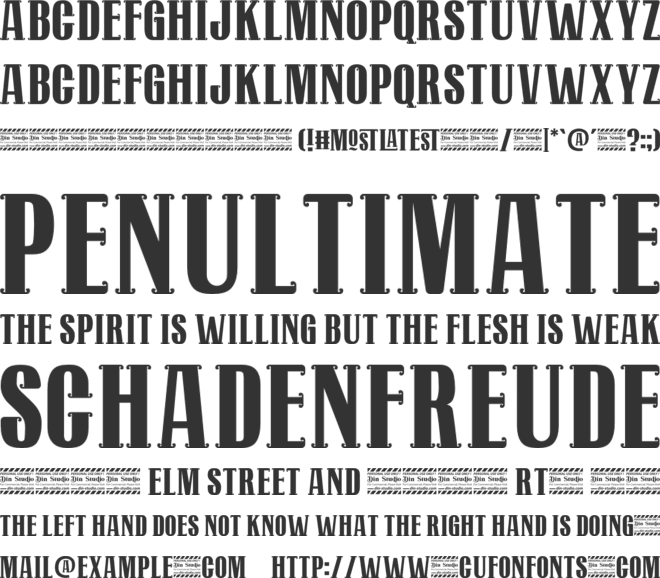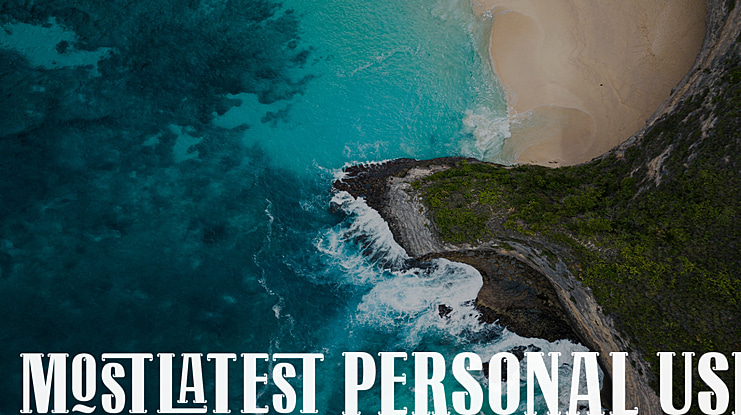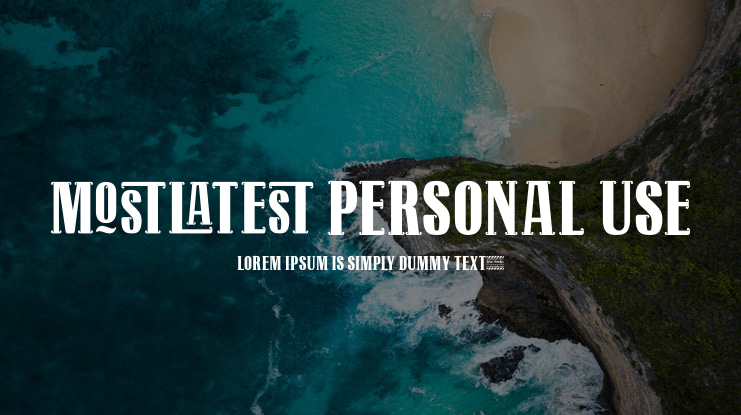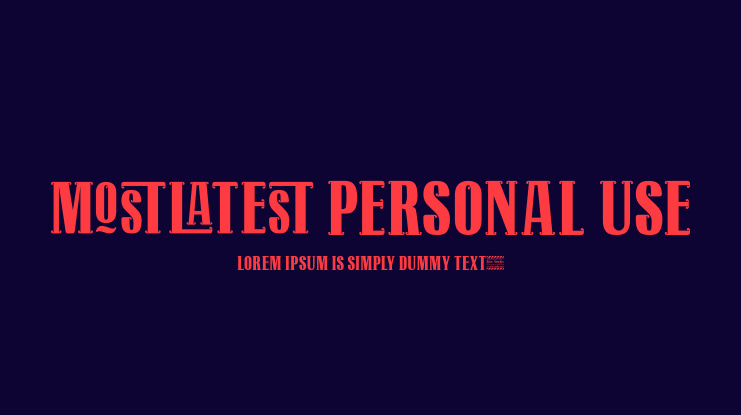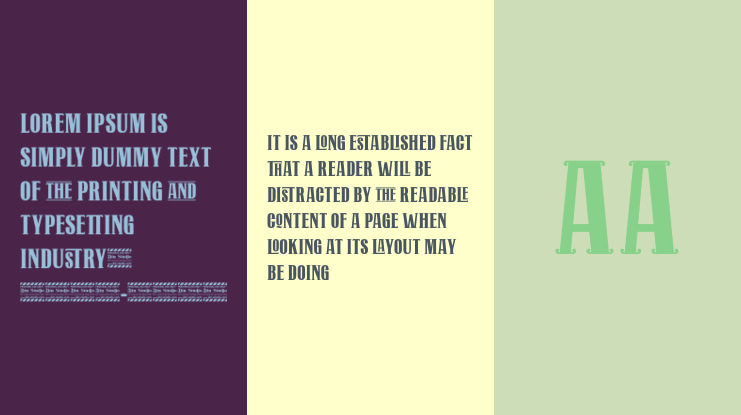
Mostlatest vintage font is a typeface that is made all characters in uppercase. An excellent choice to add the right amount of retro touch. This typeface with artistic style looks very interesting for loads of different projects and promotions. A great all-in-one package for your logo, book cover, poster, t-shirt, branding, and advertisement needs.